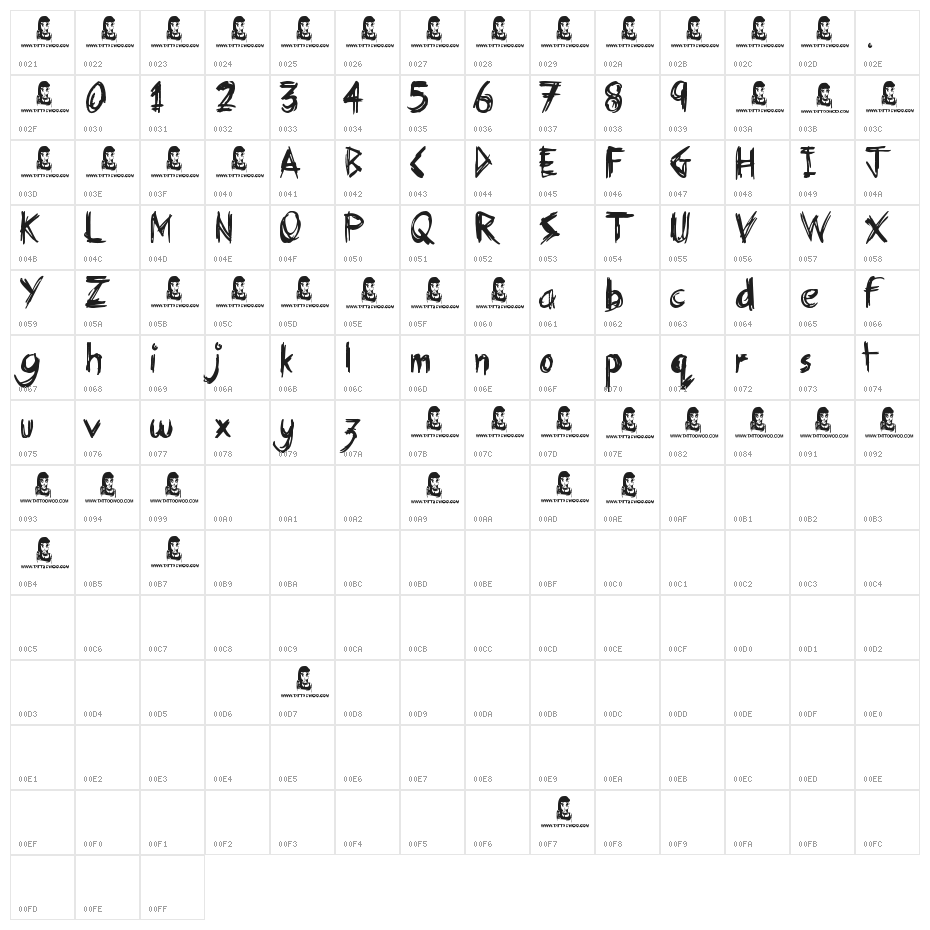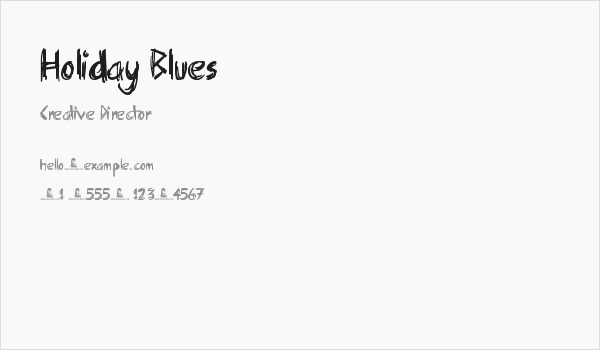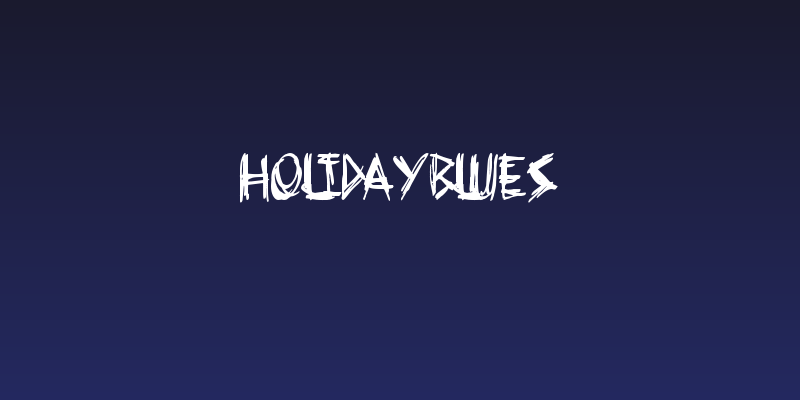
Holiday Blues Font
Holiday Blues Description
This font features a bold, expressive style with a hand-drawn appearance. The characters are irregular and dynamic, with a brush-like texture that gives a sense of movement and energy. The uppercase letters are particularly striking, with sharp angles and varying stroke widths that create a dramatic effect. Lowercase letters maintain the same energetic style, with some characters featuring unique flourishes. The numbers and special characters are consistent with the overall aesthetic, adding to the font's cohesive look. This font is ideal for projects that require a bold, artistic touch.